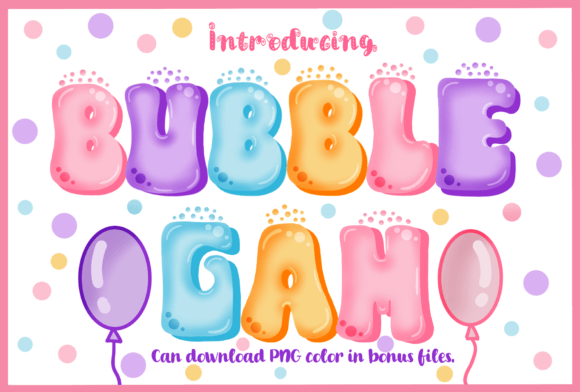
The Playful Charm of Bubble Gam Font
Have you ever been working on a design project, and suddenly, it feels like something’s missing? You’re not quite sure what it is, but you know it needs a little extra oomph. For me, that “oomph” often comes in the form of a unique font. Recently, I stumbled upon the delightful Bubble Gam Font, and let me tell you, it’s been a game-changer. This fun and bubbly font has a way of adding a playful touch to any project, making it perfect for designers, crafters, and creative hobbyists alike.
A Personal Design Moment: Finding the Right Font
I recall working on a children’s party invitation for a client. The theme was a whimsical garden party, and I wanted to capture that lighthearted, cheerful vibe. I tried font after font, but nothing seemed quite right. That was until I discovered Bubble Gam. The cute little bubbles on top of each letter immediately caught my eye, and I knew I had found the perfect fit. The invitation turned out amazing, and the client was thrilled. I’ve been hooked on Bubble Gam ever since.
• ✨ The playful bubbles on top of each letter add a unique touch to any design
• ✅ Perfect for projects that need a lighthearted, cheerful vibe
• 🎉 Great for kids’ party invitations, greeting cards, and other fun projects
While Bubble Gam is an amazing font, there are a few things to keep in mind:
• ⚠️ The bubbles on top of each letter can be a bit distracting if overused or paired with too many other decorative elements
• 🤔 Some letters, like the lowercase “q” and “p,” can be a bit tricky to read if the font size is too small
The Designer Inspiration Behind Bubble Gam
According to the font’s creator, Bubble Gam was inspired by the joy of childhood and the magic of whimsical design. The designer wanted to create a font that would bring a smile to people’s faces and add a touch of playfulness to any project. And I think they’ve succeeded!
Q: Is Bubble Gam suitable for professional projects?
A: Absolutely! While Bubble Gam has a playful vibe, it’s still a high-quality font that can add a unique touch to professional projects. Just be sure to use it in moderation and balance it with other design elements.